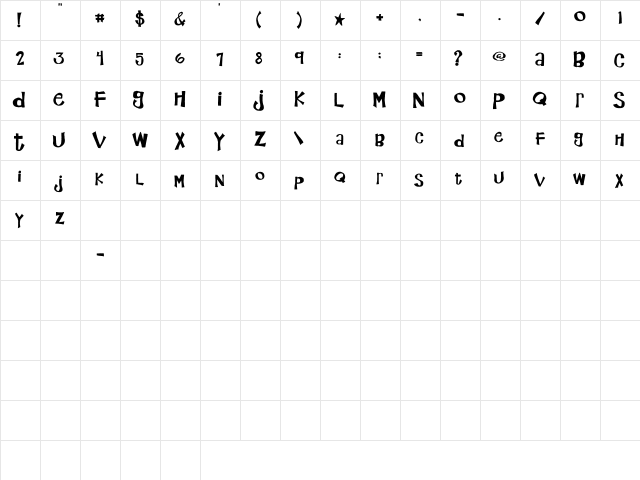
2Peas Bleached Blonde 2Peas Bleached Blonde Font Preview
Design Context for 2Peas Bleached Blonde Typeface
2Peas Bleached Blonde is a composed and adaptable typeface that performs quietly and consistently across a wide range of design contexts.
Pro Tip: Use 2Peas Bleached Blonde in both headline and body roles to test its range before committing to a single application.